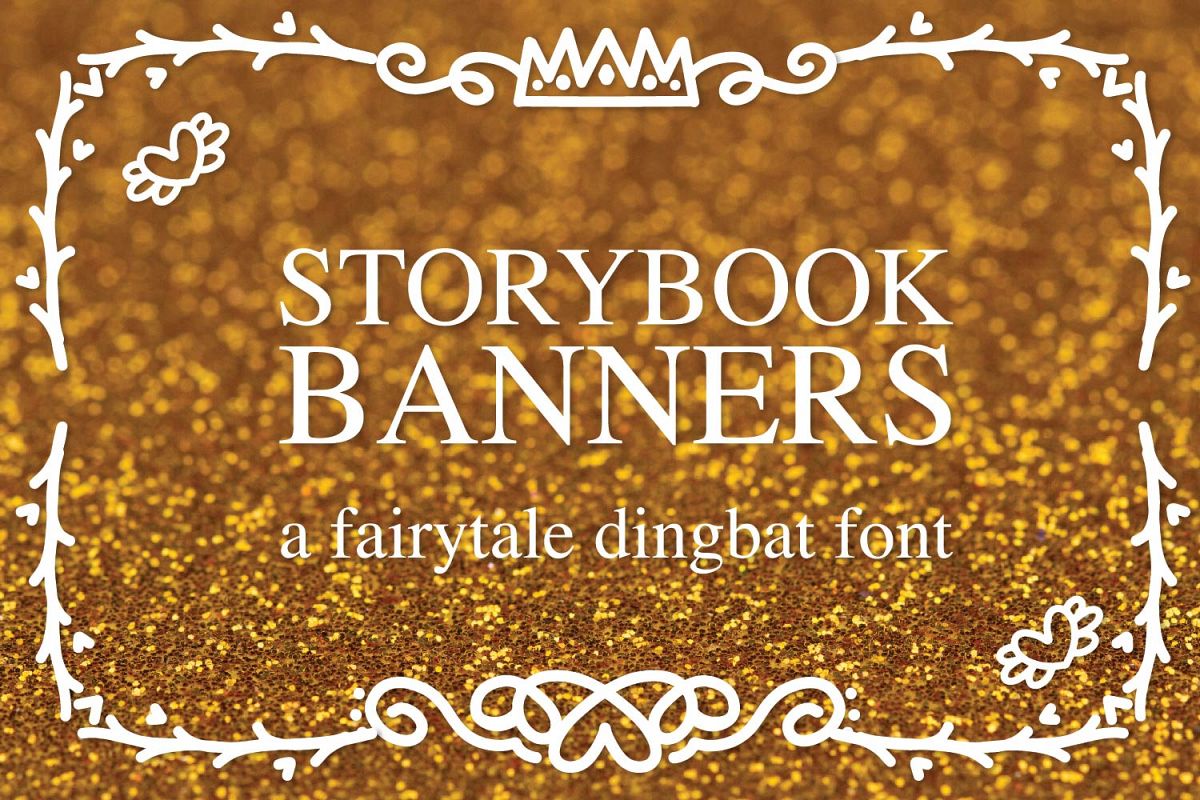
Storybook Banners - A Dingbat Font Full of Magical Borders
This font is a dingbat ONLY font- no text included.
Jam packed with 60 different hand drawn fairytale border bits.
Mix & Match to create your own, or use as is. :)